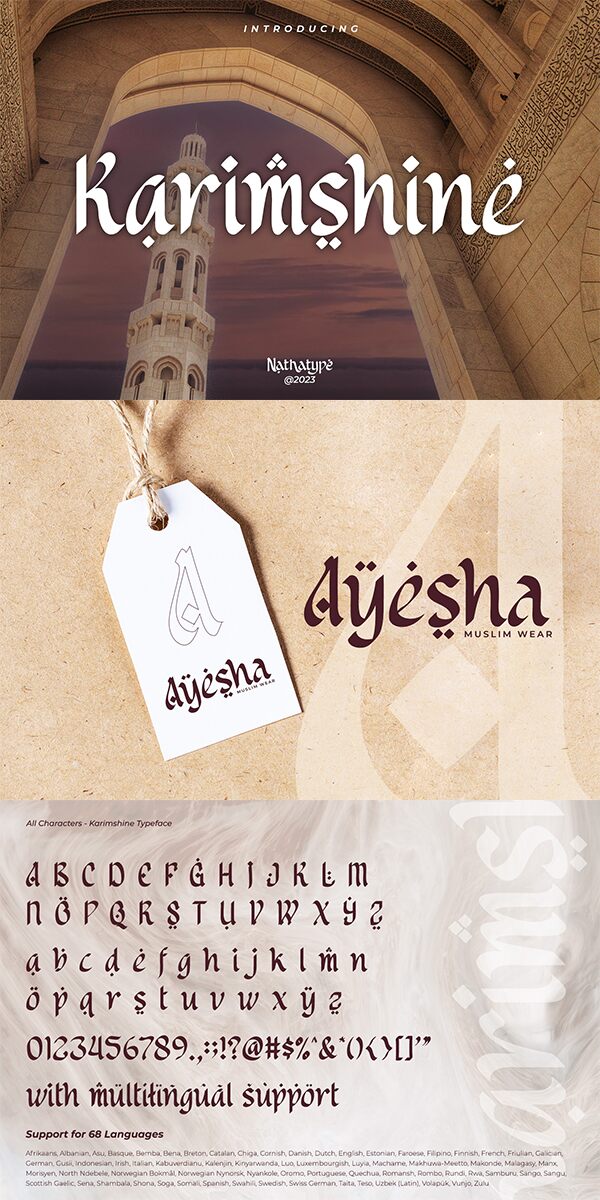
Karimshine font designed by Nathatype is an elegant and sophisticated script font with ornate details and a modern flair. This free font intertwines calligraphic influences with a contemporary touch, offering a unique blend of historical resonance and modern versatility. Perfect for those seeking a refined yet fresh appearance, Karimshine is an impeccable choice for adding a touch of luxury to your design projects.
Use Karimshine in branding, high-end products, invitations, and any project that necessitates an elegant and sophisticated feel. The font is also ideal for logo designs, packaging, social media graphics, apparel designs, labels, and many other creative purposes.